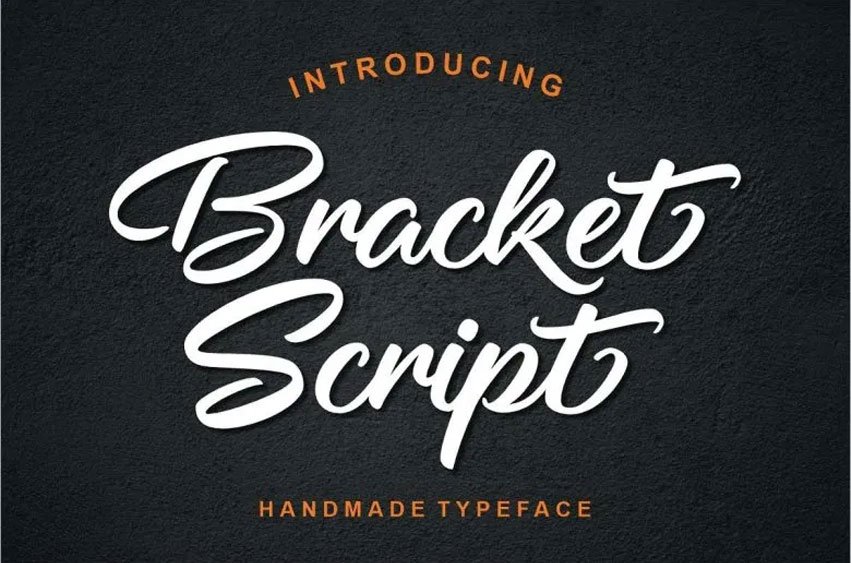
Bracket Font
Bracket Font is elegant, rather new Script face font that comes from the derived movements of writing by hand.
It closely suits the use for logotypes, brand works, promotional commercials, statement graphics and designs, packaging graphics in particular products such as t-shirts, posters, bags, shoes and accessories as well as consumer goods promotion in social networks.